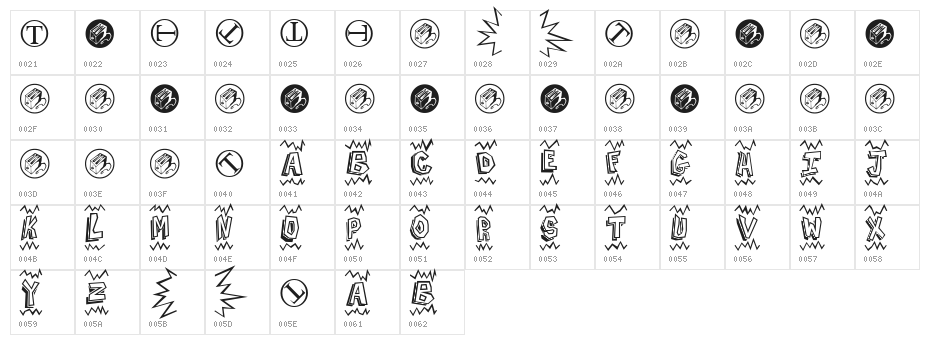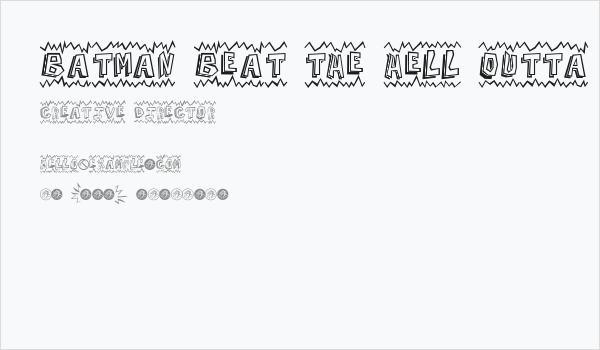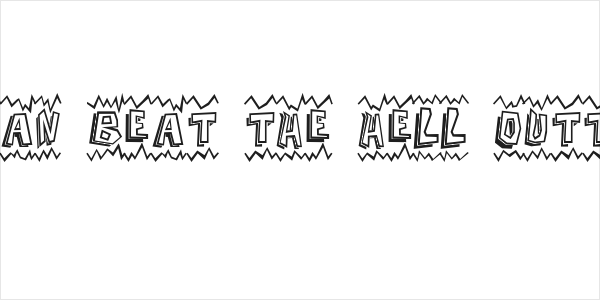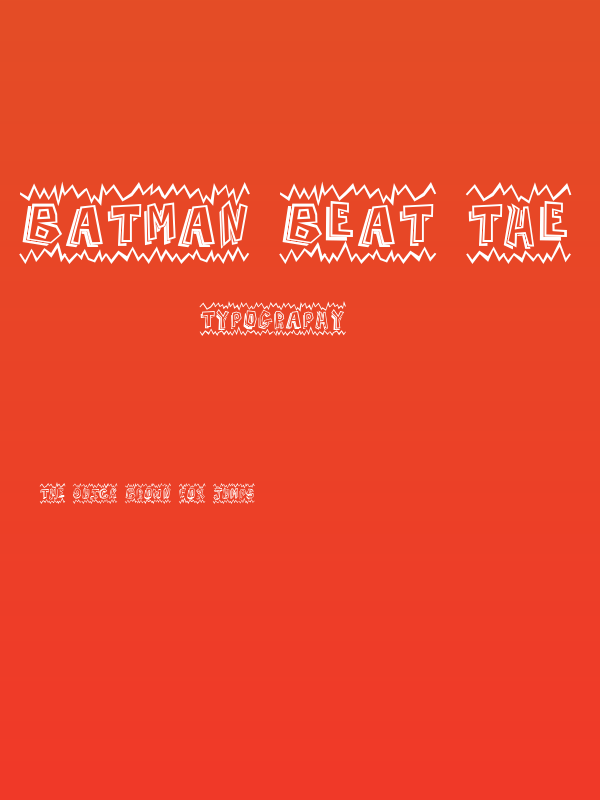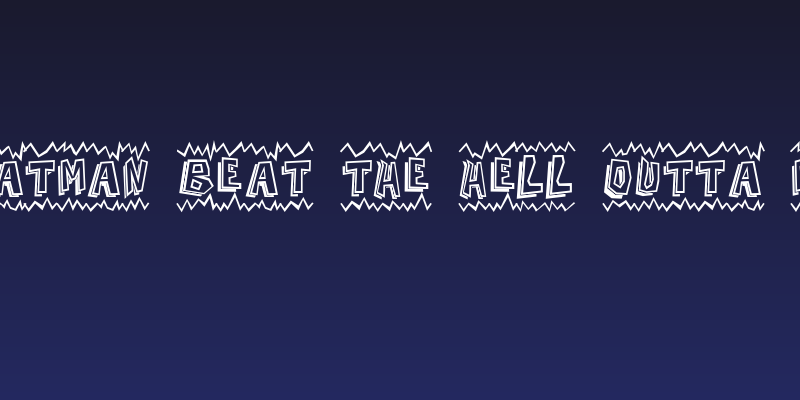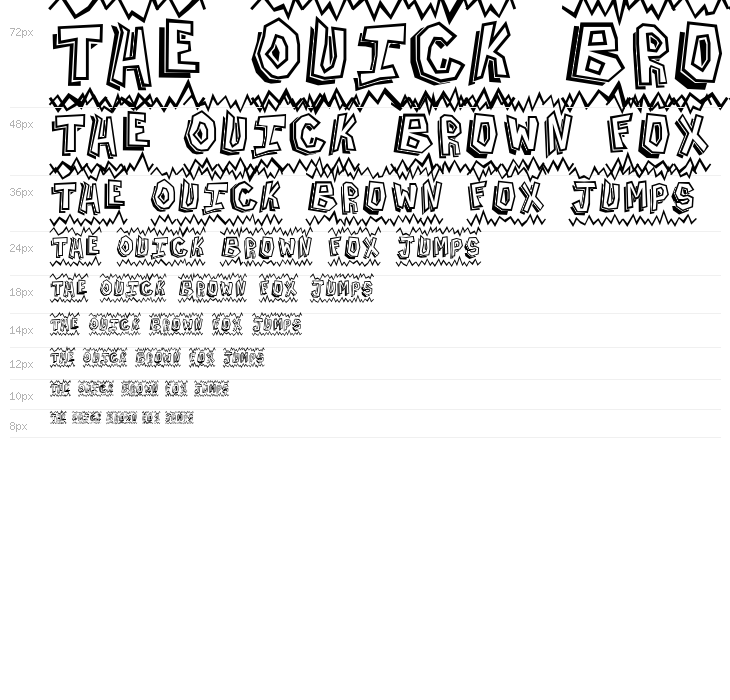
Batman Beat the hell Outta Me Font
Batman Beat the hell Outta Me Description
This font features a bold, comic-inspired style with a dynamic, energetic appearance. The letters are outlined with a thick black stroke, giving them a three-dimensional effect. Each character is uniquely designed with sharp angles and irregular shapes, reminiscent of classic comic book lettering. The font conveys a sense of action and excitement, making it ideal for projects that require a playful and adventurous tone. The uppercase letters are particularly striking, with exaggerated forms that capture attention. The special characters, including symbols and punctuation, maintain the same lively aesthetic, enhancing the overall cohesive look.
| Overall Style | Comic, Energetic, Playful |
| Proposed Projects | Ideal for comic books, graphic novels, posters, and playful branding. |